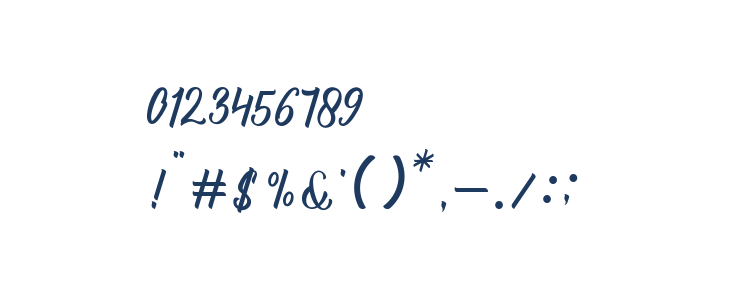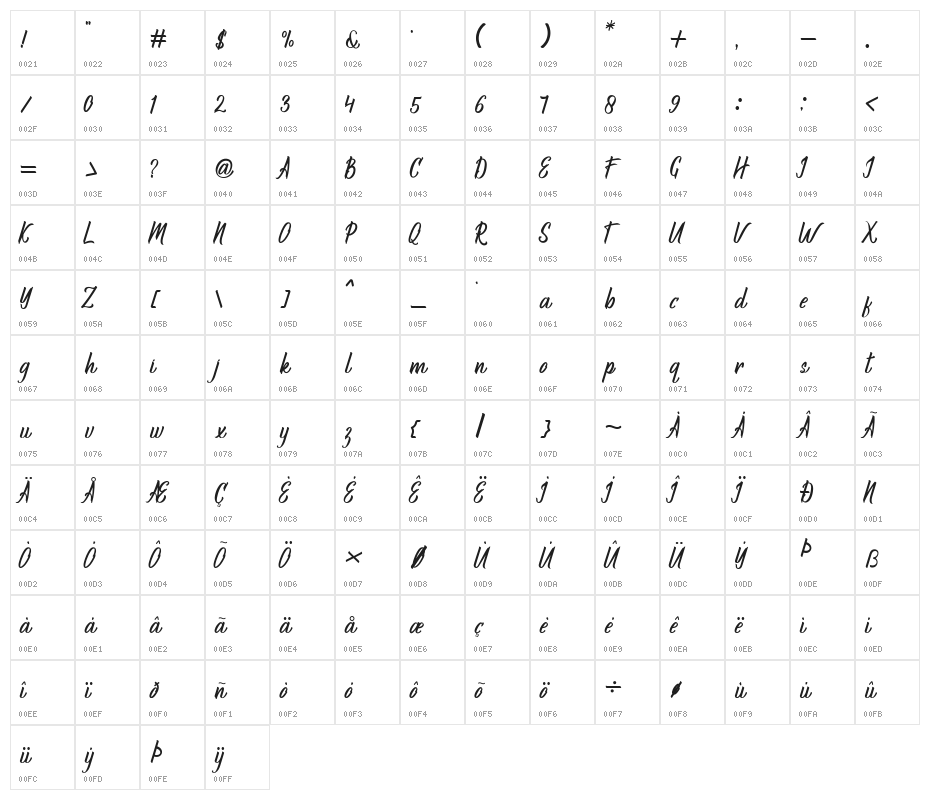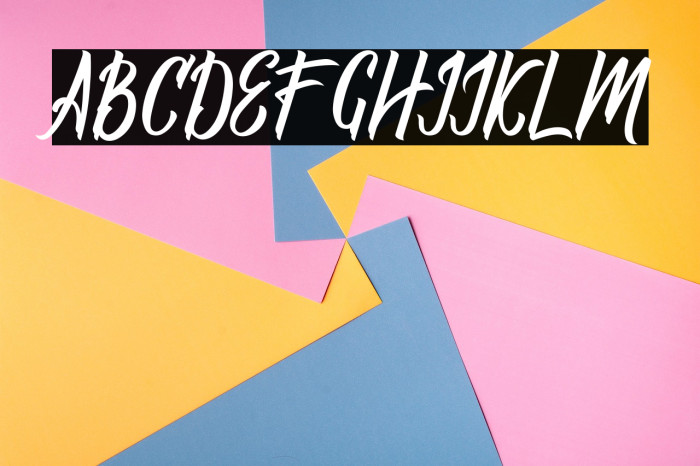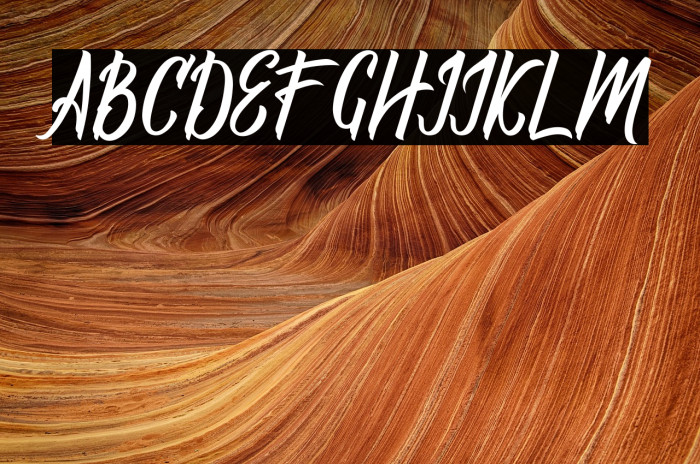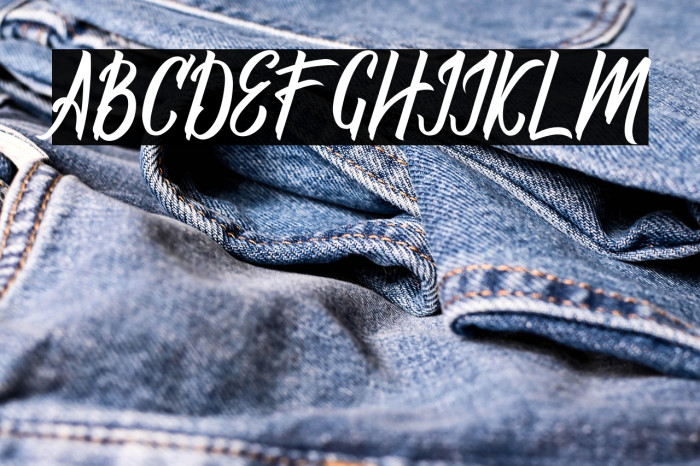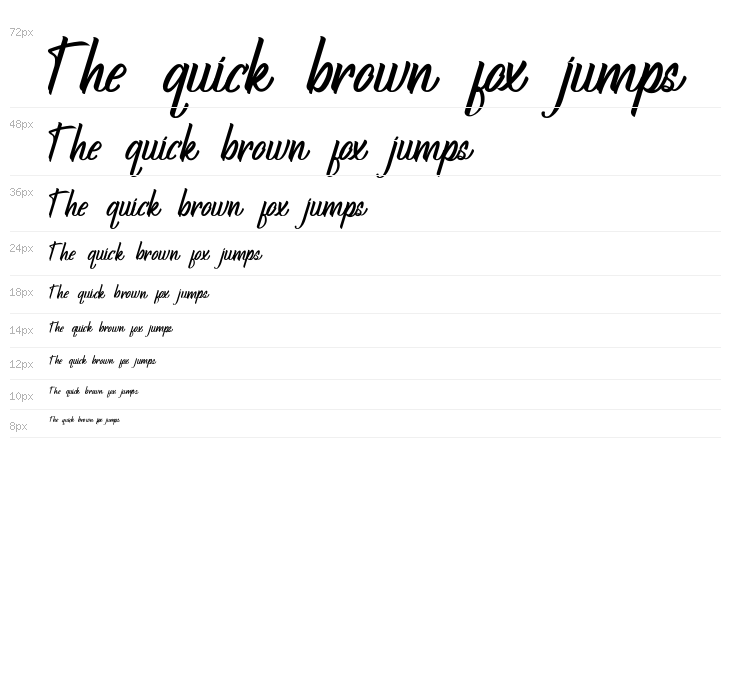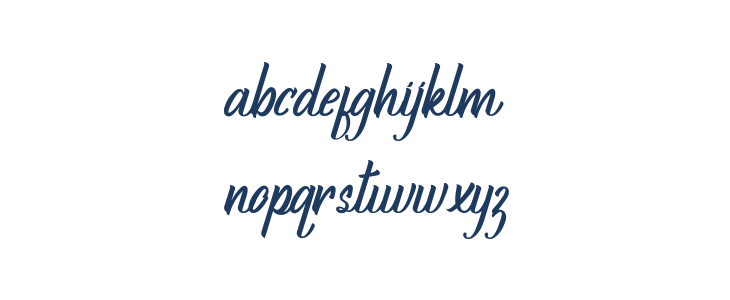
Sagne Font
Sagne Description
This font features a dynamic and fluid script style, characterized by its elegant and flowing letterforms. The uppercase letters are bold and slightly slanted, giving a sense of movement and grace. The lowercase letters maintain a consistent style, with smooth curves and a slight slant that enhances readability. Numbers are well-integrated into the design, maintaining the same flowing aesthetic. Special characters are creatively designed, complementing the overall script style. This font is ideal for projects that require a touch of elegance and sophistication, such as invitations, branding, and decorative purposes.
| Proposed Projects | Ideal for wedding invitations, branding, logos, and decorative designs. |